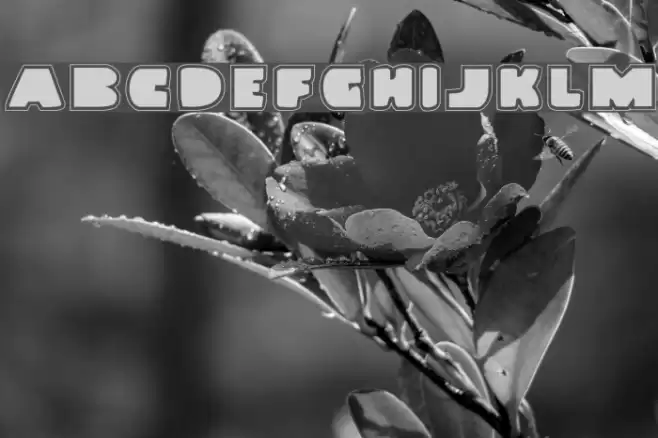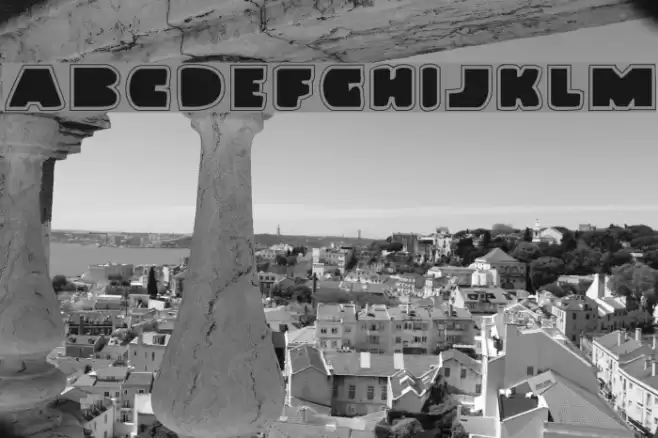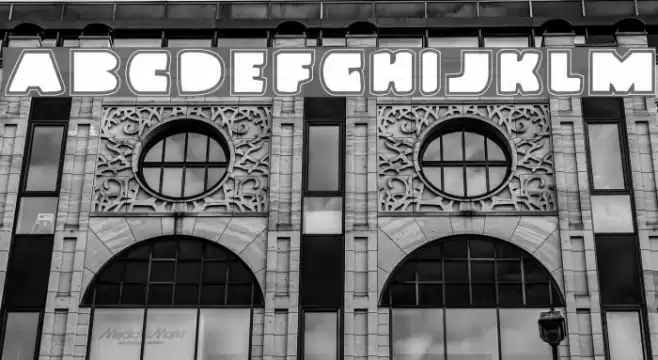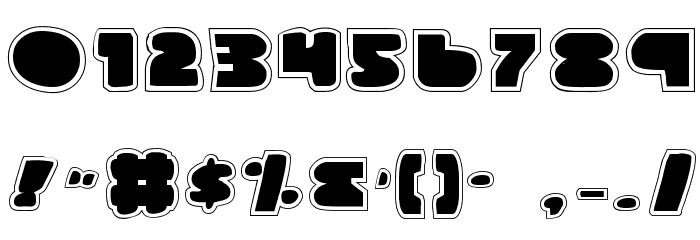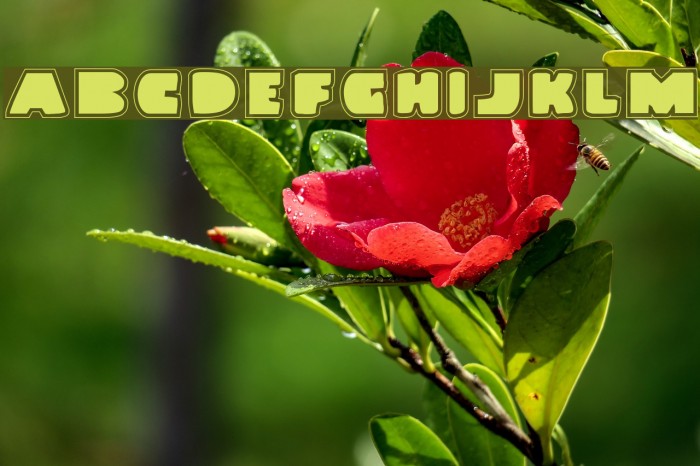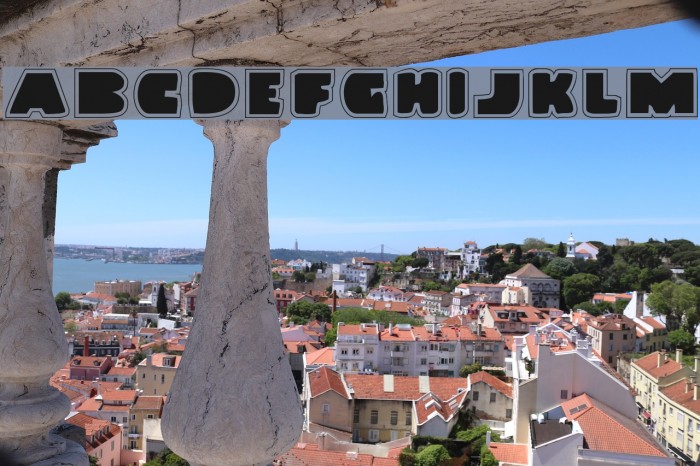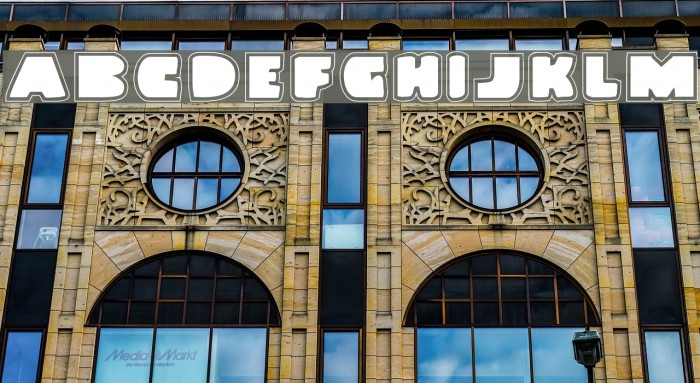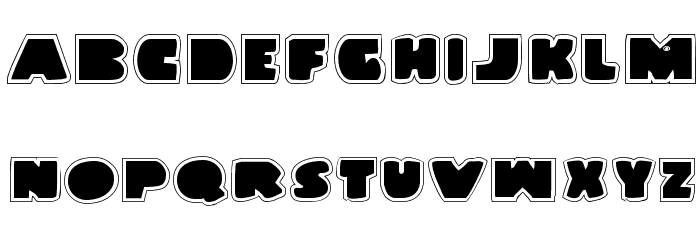
Land Whale Pro Font
Land Whale Pro Description
This font features bold, geometric letterforms with a strong presence. Each character is outlined, creating a striking contrast between the thick, solid interior and the thin, uniform outline. The design is playful yet assertive, making it ideal for attention-grabbing headlines or branding. The uppercase and lowercase letters maintain a consistent style, with rounded edges that soften the overall look. Numbers and special characters are equally bold and well-defined, ensuring readability and visual impact.
A bold, geometric font with outlined characters and a playful, assertive style.
- Proposed Projects: Ideal for branding, posters, headlines, and any project requiring a bold, eye-catching typeface.